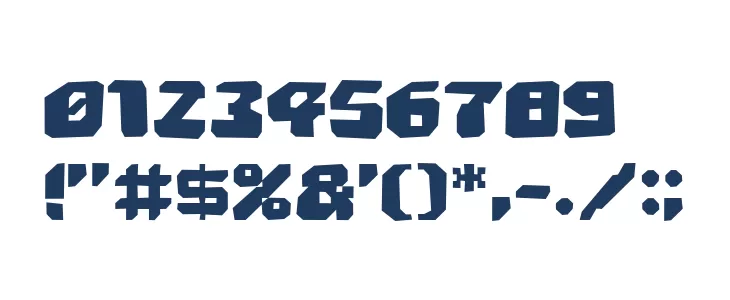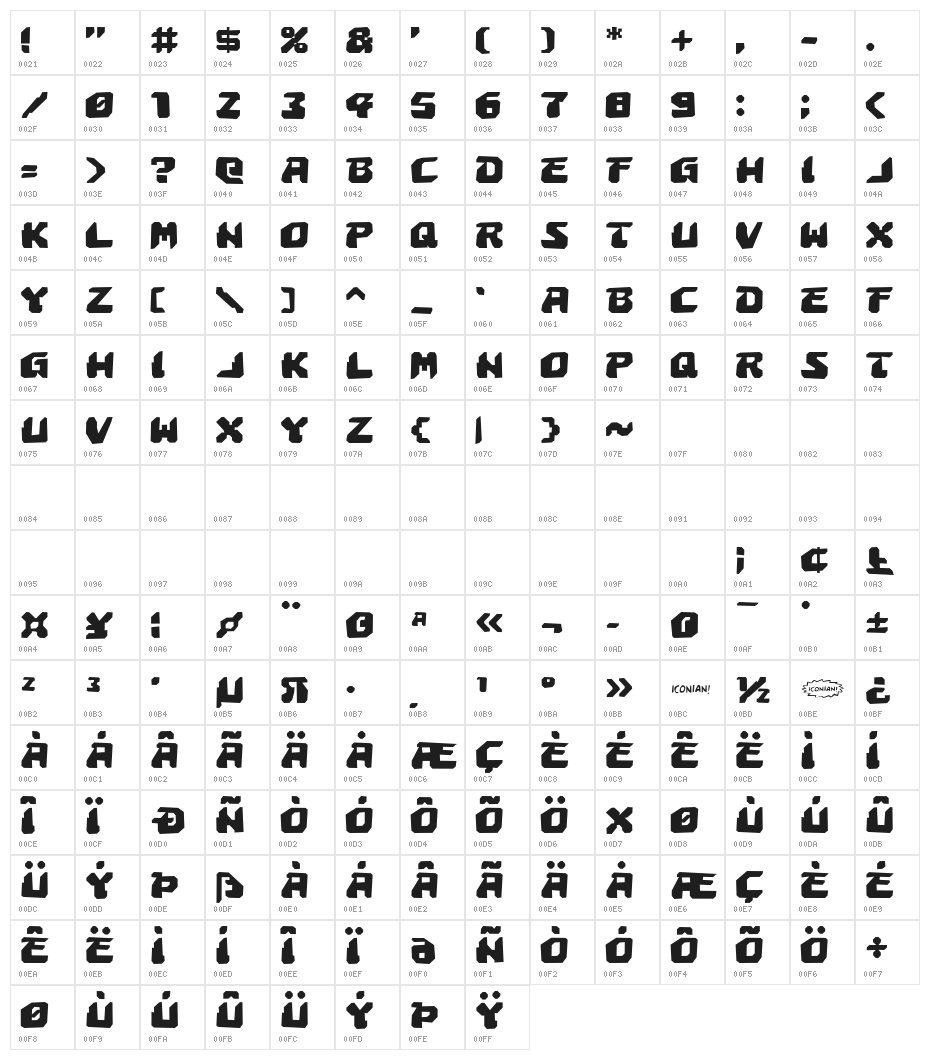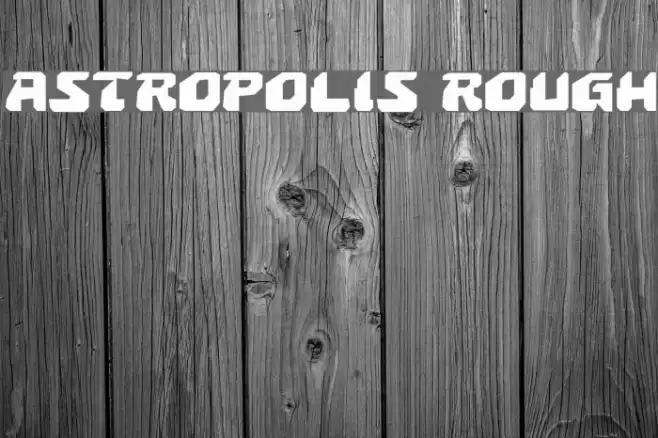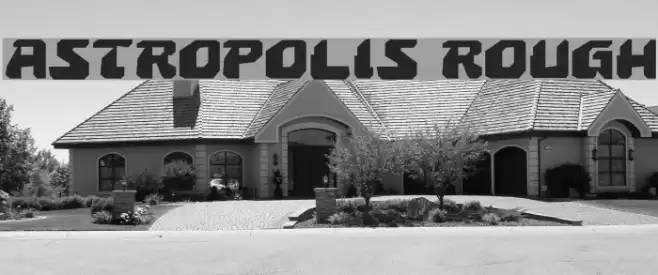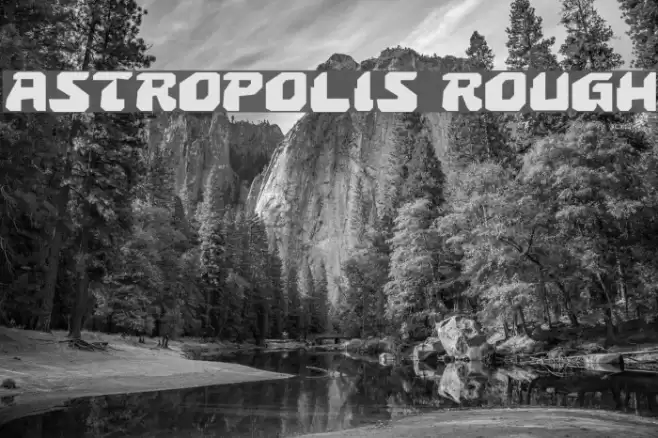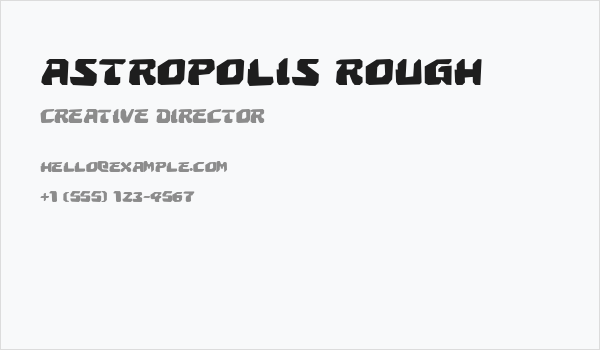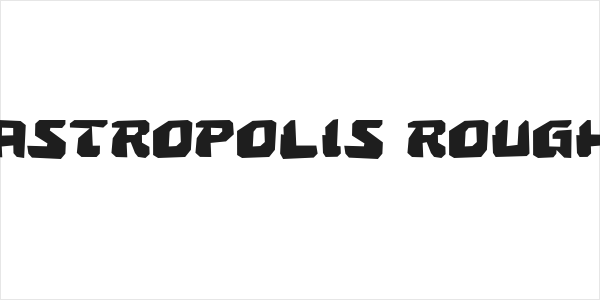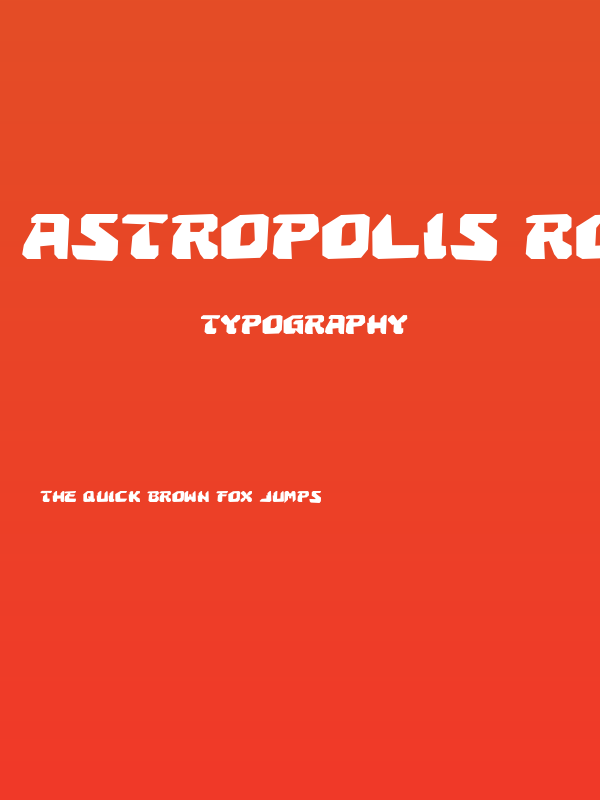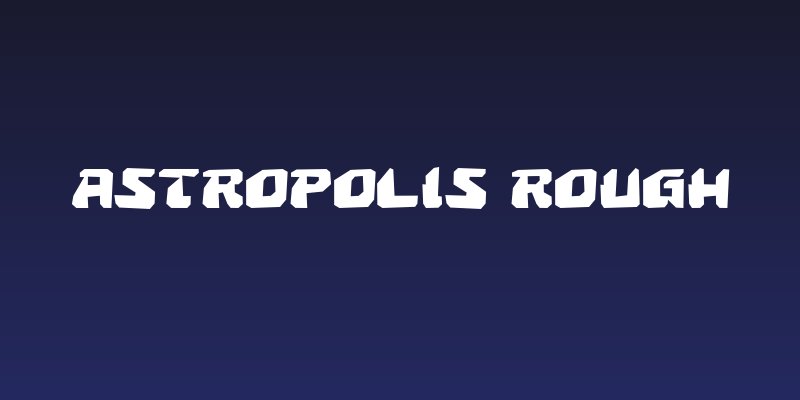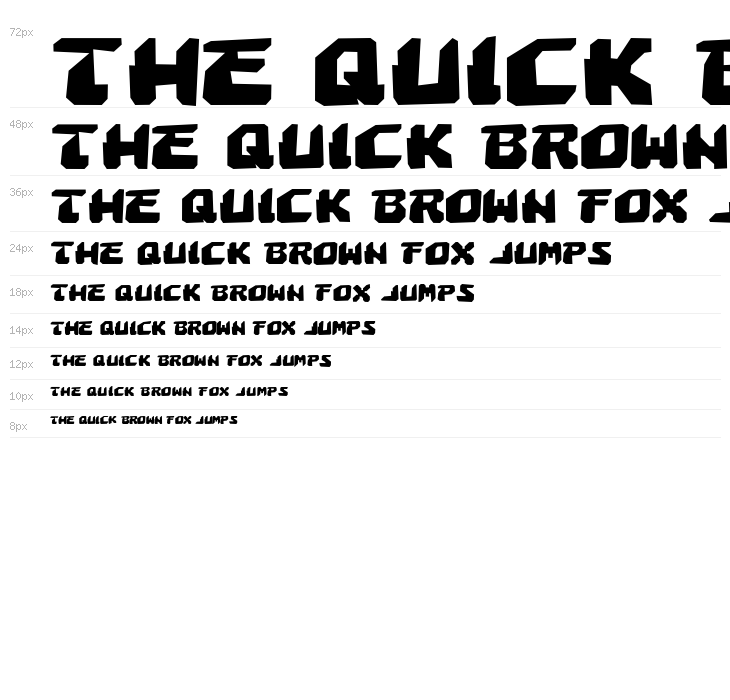
Astropolis Rough Font
Astropolis Rough Description
This font features a bold, geometric design with a rough, textured finish that gives it a rugged, industrial feel. The characters are blocky and angular, with sharp edges and a consistent thickness throughout. The uppercase and lowercase letters maintain a uniform style, while the numerals and special characters complement the overall aesthetic. The font's distinct appearance makes it suitable for projects that require a strong, impactful visual presence.
| Overall Style | Industrial, Rugged |
| Proposed Projects | Ideal for branding, posters, video game graphics, and any project needing a strong, industrial look. |